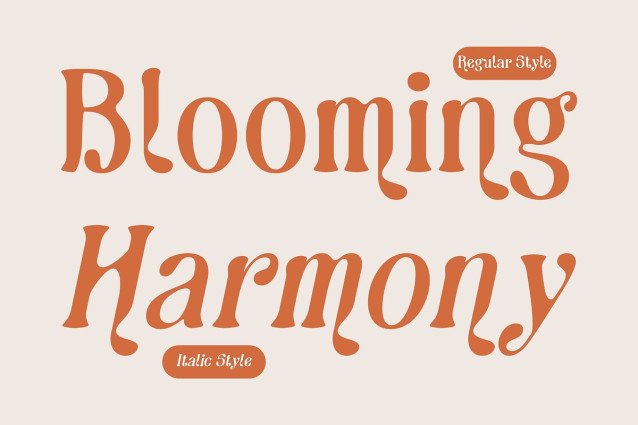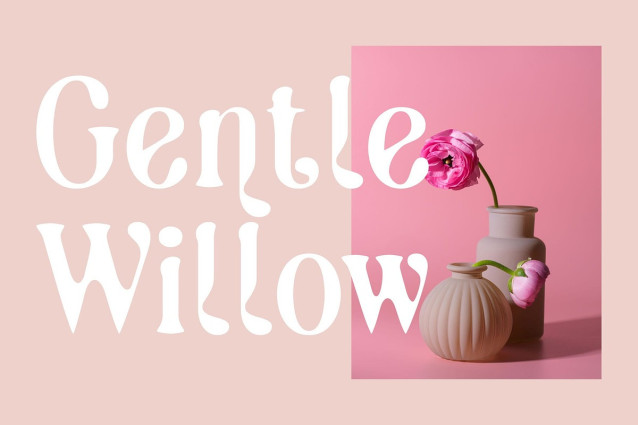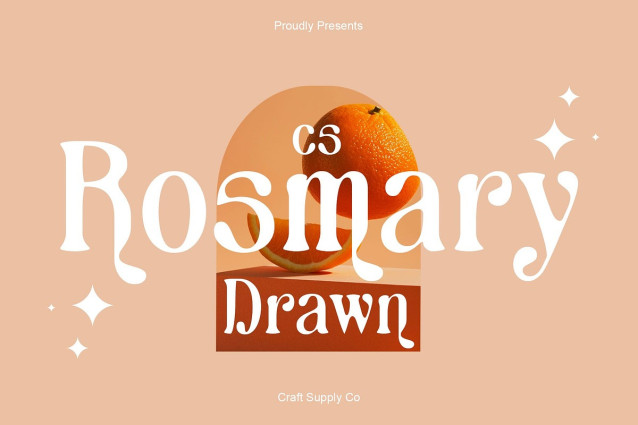
CS Rosmary Drawn Font
CS Rosmary Drawn Font – This is a modern serif font inspired by the graceful forms of Art Nouveau. Its flowing curves and refined details create a sense of timeless sophistication, while the drawn texture adds depth and personality. This combination makes the font both elegant and contemporary, ideal for designs that demand a stylish and artistic edge.
Art Nouveau Influence for Distinctive Character The organic flow of font captures the spirit of Art Nouveau, with smooth transitions and ornamental touches that echo historical artistry. These details enrich its character, offering designers a font that feels classic yet refreshingly current. Its refined structure ensures readability, even with its decorative essence.
Drawn Texture for Handmade Charm Unlike overly polished serif fonts, embraces a drawn touch that enhances its individuality. This subtle imperfection introduces a handmade quality, giving the font warmth and charm. It ensures that every project whether digital or print carries a personal and artistic flair.
Versatile for Luxury and Editorial Design Perfect for luxury fashion branding, elegant posters, or stylish editorial layouts, this font adapts effortlessly to both high-end and creative projects. Its graceful curves and drawn finish allow it to shine in headlines, logos, and magazine spreads. For designers seeking a balance of modern sophistication and artistic charm, this font is a standout choice.